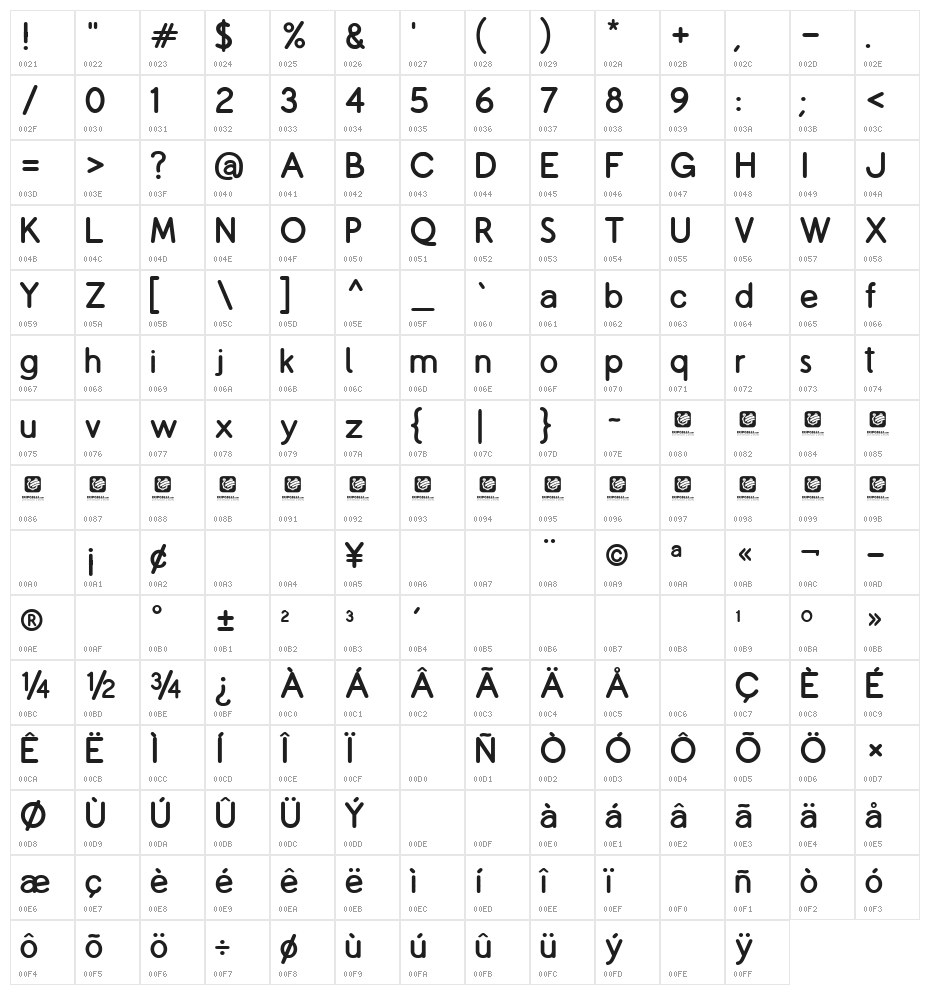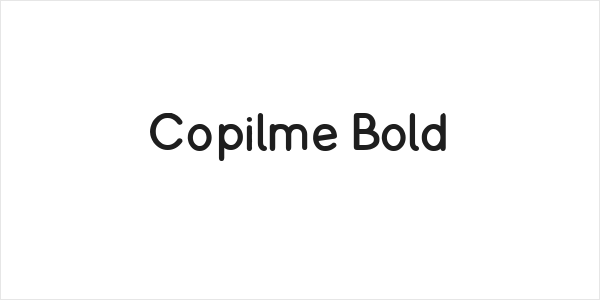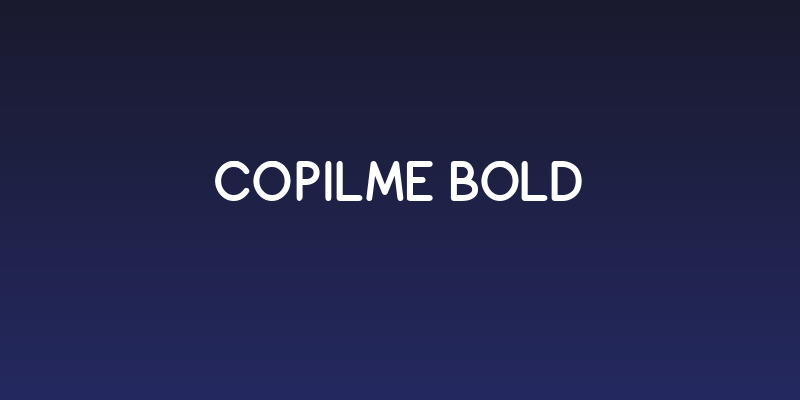
Copilme Bold Font
Copilme Bold Description
This font features a bold and rounded style with smooth curves and a friendly appearance. The characters are evenly spaced, providing a clean and modern look. The uppercase letters are slightly taller than the lowercase, maintaining a consistent width throughout. The numerals are clear and easy to read, making them suitable for various applications. Special characters are well-defined, adding versatility to the font's use. The overall design is approachable and contemporary, ideal for projects that require a warm and inviting feel.
| Use Case | Headlines, Logos, Digital Interfaces |
| Proposed Projects | Ideal for branding, advertising, children's books, and digital interfaces where a welcoming tone is desired. |